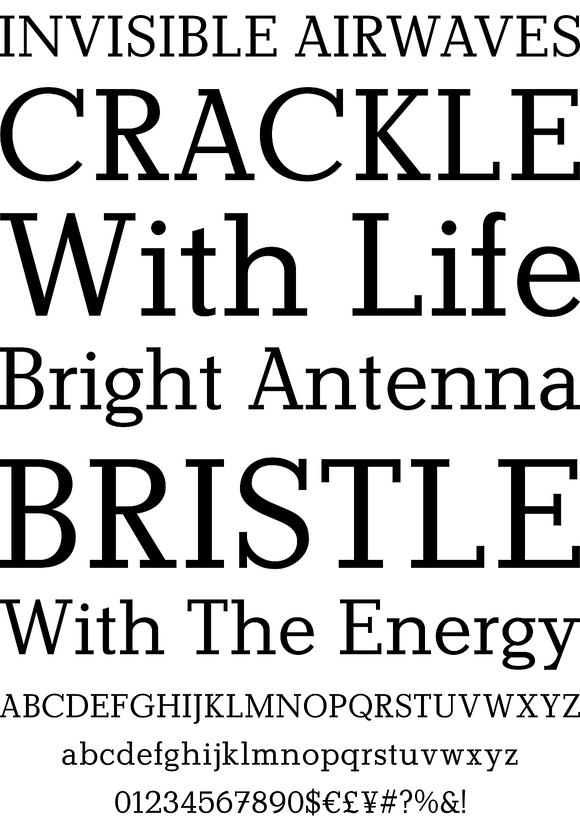
Manutius Pro
Foundry: RMU Typedesign
A stylish slab serif font family with a charme of its own which was first released by Wagner in hot-metal times, and that comes with swash caps in the italics.